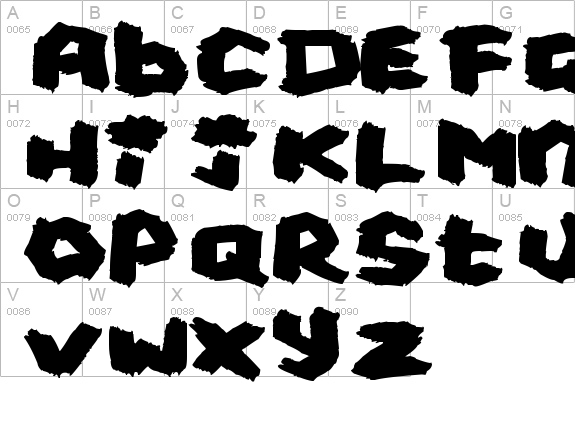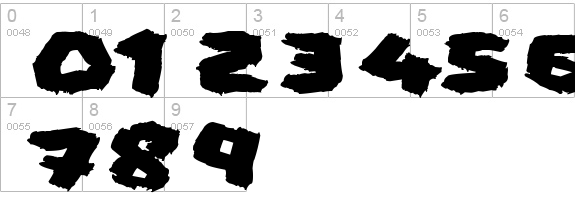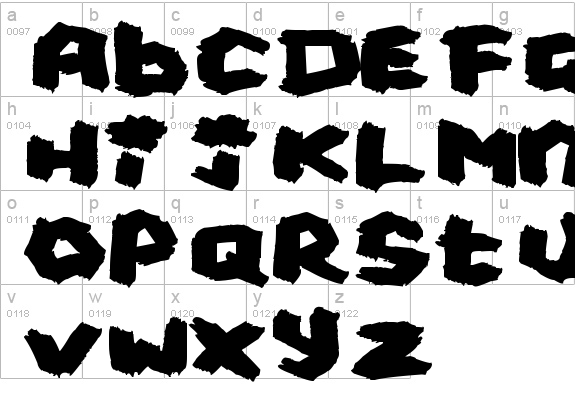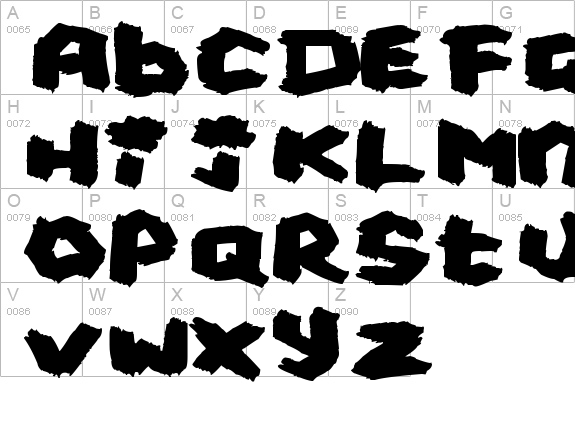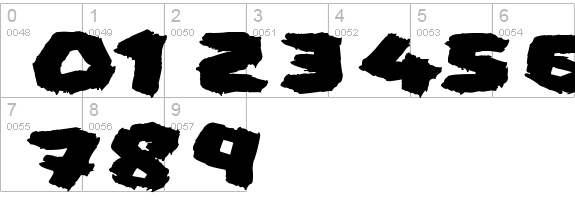
Fat Brush Font Details
Fat Brush is a free for personal use font in the Script > Brush category, designed by Darrell Flood. It has been downloaded 44 times and is available for Windows, Mac and Linux.
Fat Brush font is a bold and expressive typeface that exudes a playful and dynamic energy. With its thick brush strokes and rounded edges, this font is perfect for creating eye-catching designs that demand attention. Whether you're working on a poster, logo, or social media graphic, Fat Brush font will add a touch of whimsy and personality to your project.